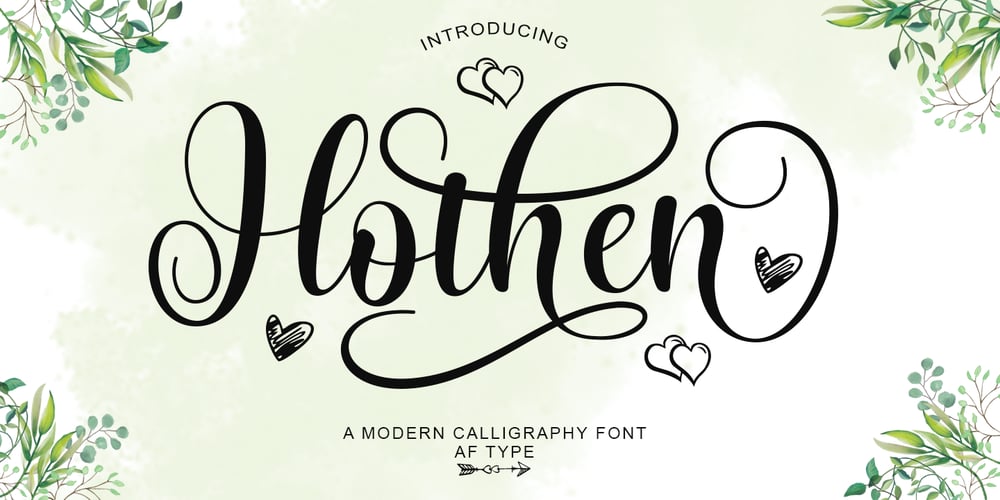
Hothen Font Family was designed by Al Qausar Firdaus and published by AF Type. Hothen contains 1 styles and family package options. Hothen is a new variant of the beautiful script type with linkable hearts which is here to complete your script font collection. Hothen is perfect for branding, wedding invitations, business cards, posters, quotes and other romantic projects.Hothen features OpenType style alternatives, international binders and support for most Western Languages ??included. To enable the OpenType Stylistic alternative, you need a program that supports OpenType features such as Adobe Illustrator CS, Adobe Indesign & CorelDraw X6-X7, Microsoft Word 2010 or a later version.Hothen is encoded with PUA Unicode, which allows full access to all additional characters without having to design special software. Mac users can use Font Book , and Windows users can use Character Map to view and copy any additional characters to paste into your favorite text editor/application.If you need help or have any questions, let me know. I’m happy to help.Thank you.AF Type